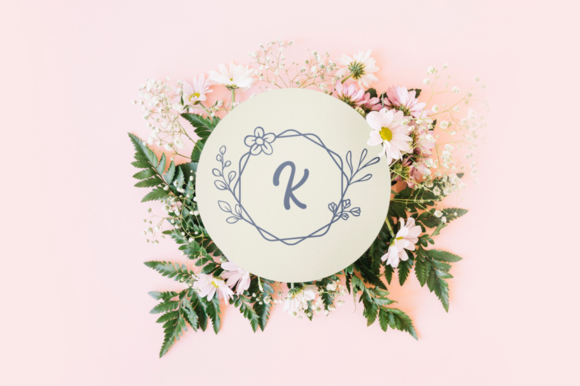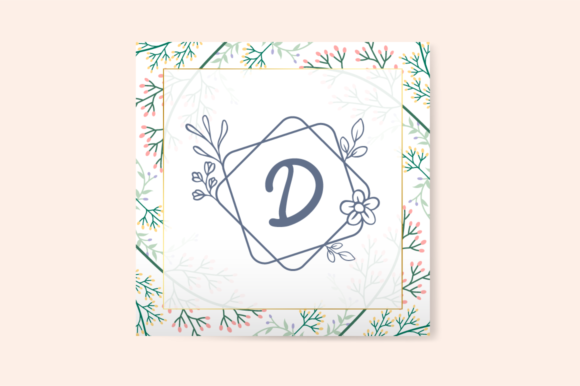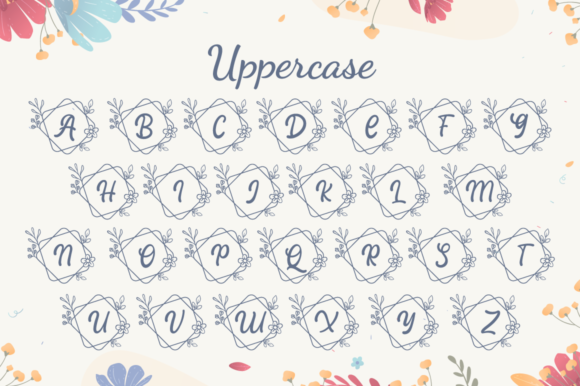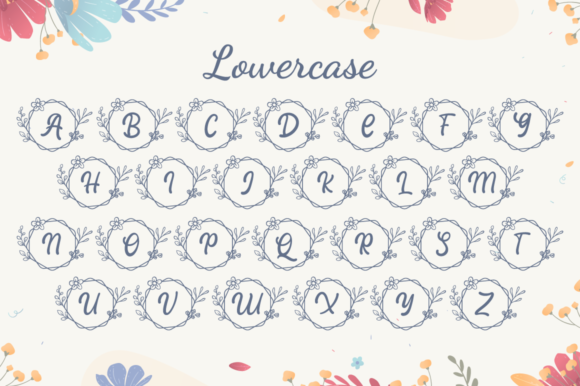
Introducing Alche Monogram Font: The Perfect Addition to Your Romantic Designs
Are you a designer or crafter looking for a font that exudes romance and elegance? Look no further than Alche Monogram Font, a lovely and dainty decorative font that is sure to elevate your designs to the next level. With its intricate details and beautiful curves, Alche Monogram is the perfect addition to any love letter, wedding invitation, or design project that requires a touch of sophistication.
A Romantic and Lovely Looking Font
Alche Monogram Font is a stunning example of a decorative font that is both romantic and lovely looking. Its delicate curves and intricate details make it the perfect choice for designers and crafters who want to add a touch of elegance to their work. Whether you’re creating a wedding invitation, a love letter, or a design project that requires a personal touch, Alche Monogram is sure to impress.
Perfect for Wedding Invitations and Love Letters
Wedding invitations and love letters are special occasions that require a font that is both romantic and elegant. Alche Monogram Font is the perfect choice for these types of projects, as it adds a touch of sophistication and whimsy to any design. Imagine creating a beautiful wedding invitation with Alche Monogram as the main font – the result is sure to be breathtaking. Similarly, using Alche Monogram in a love letter is a great way to add a personal touch and make the letter even more special.
Alche Monogram Font is not just limited to wedding invitations and love letters. Its versatility makes it perfect for a wide range of design projects, from scrapbooking to card making. Designers and crafters can use Alche Monogram to create beautiful and unique designs that are sure to stand out. Whether you’re creating a handmade card, a scrapbook page, or a wedding favor, Alche Monogram is sure to add a touch of elegance and sophistication.
Why Choose Alche Monogram Font?
There are many decorative fonts available, but Alche Monogram stands out from the rest. Here are just a few reasons why designers and crafters love Alche Monogram Font:
- Unique and Elegant Design: Alche Monogram Font has a unique and elegant design that is sure to add a touch of sophistication to any project.
- Romantic and Whimsical: Alche Monogram is the perfect choice for designers and crafters who want to add a romantic and whimsical touch to their work.
- Versatile: Alche Monogram can be used for a wide range of design projects, from wedding invitations to scrapbooking.
Tips for Using Alche Monogram Font
Here are a few tips for using Alche Monogram Font in your designs:
- Use it as a Title Font: Alche Monogram is perfect for use as a title font, adding a touch of elegance and sophistication to any design.
- Pair it with Other Fonts: Alche Monogram pairs well with other fonts, making it easy to create a unique and interesting design.
- Experiment with Colors: Alche Monogram looks great in a variety of colors, so don’t be afraid to experiment and find the perfect color for your design.
| Font Name | Alche Monogram Font |
| Author | attypestudio |
Alche Monogram Font is a beautiful and elegant decorative font that is perfect for designers and crafters who want to add a touch of romance and sophistication to their work. With its intricate details and delicate curves, Alche Monogram is sure to elevate any design project to the next level. Whether you’re creating a wedding invitation, a love letter, or a design project that requires a personal touch, Alche Monogram is the perfect choice.